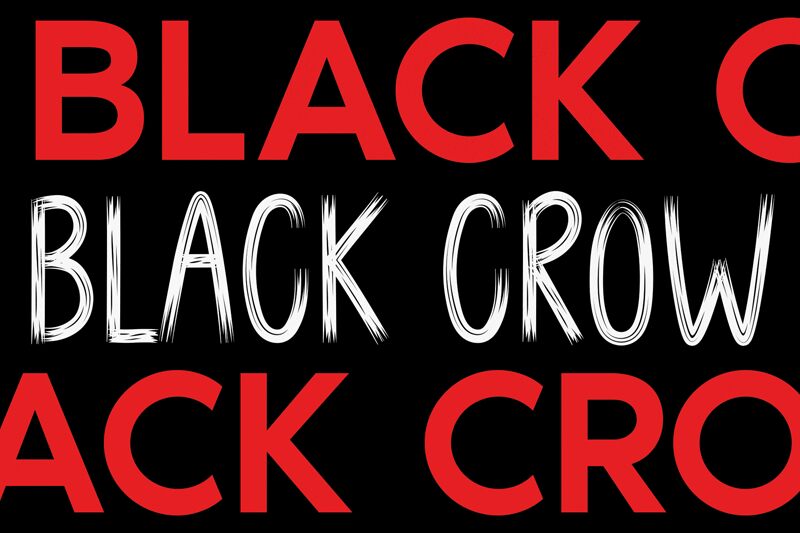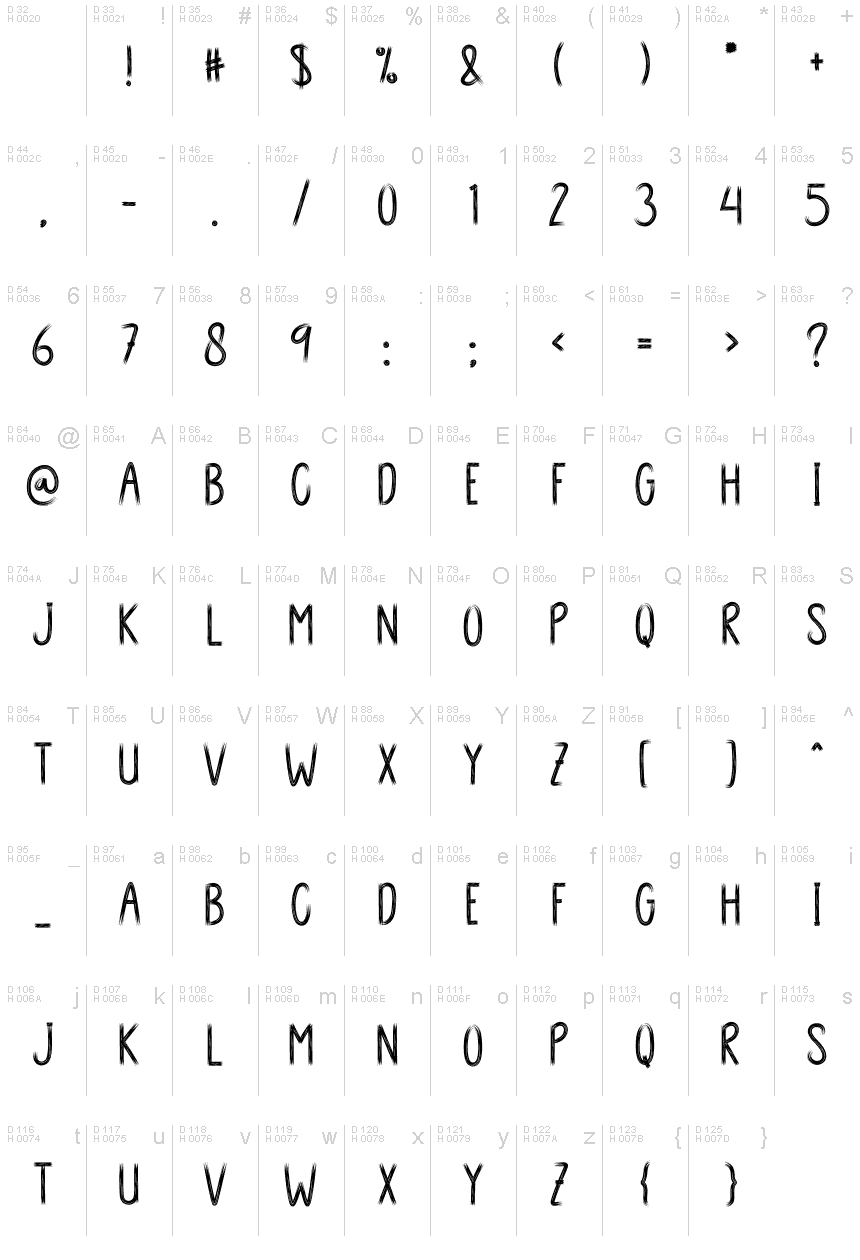
BLACK CROW
the latest style letters are perfect for wall displays, wedding invitations, social media post logos,
advertisements, product packaging, product designs, labels, photography, watermarks, invitations, stationery,
and any project that requires taste handwriting.